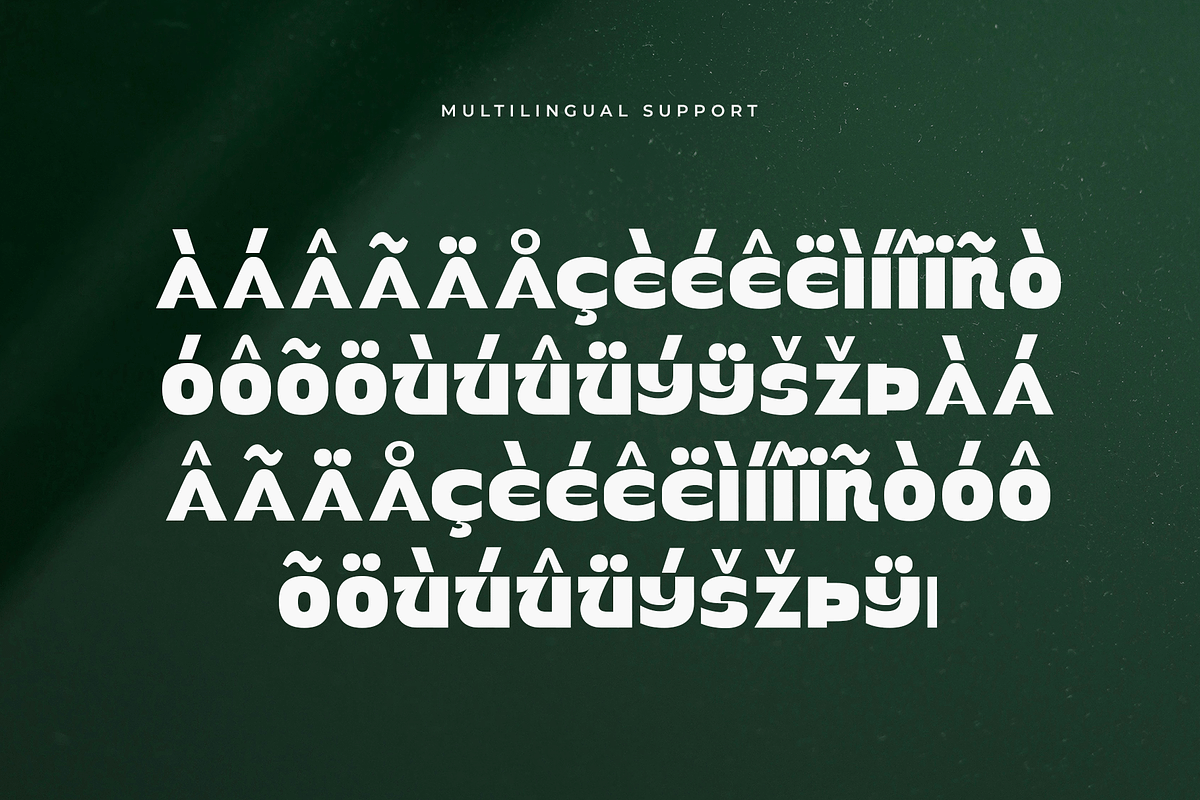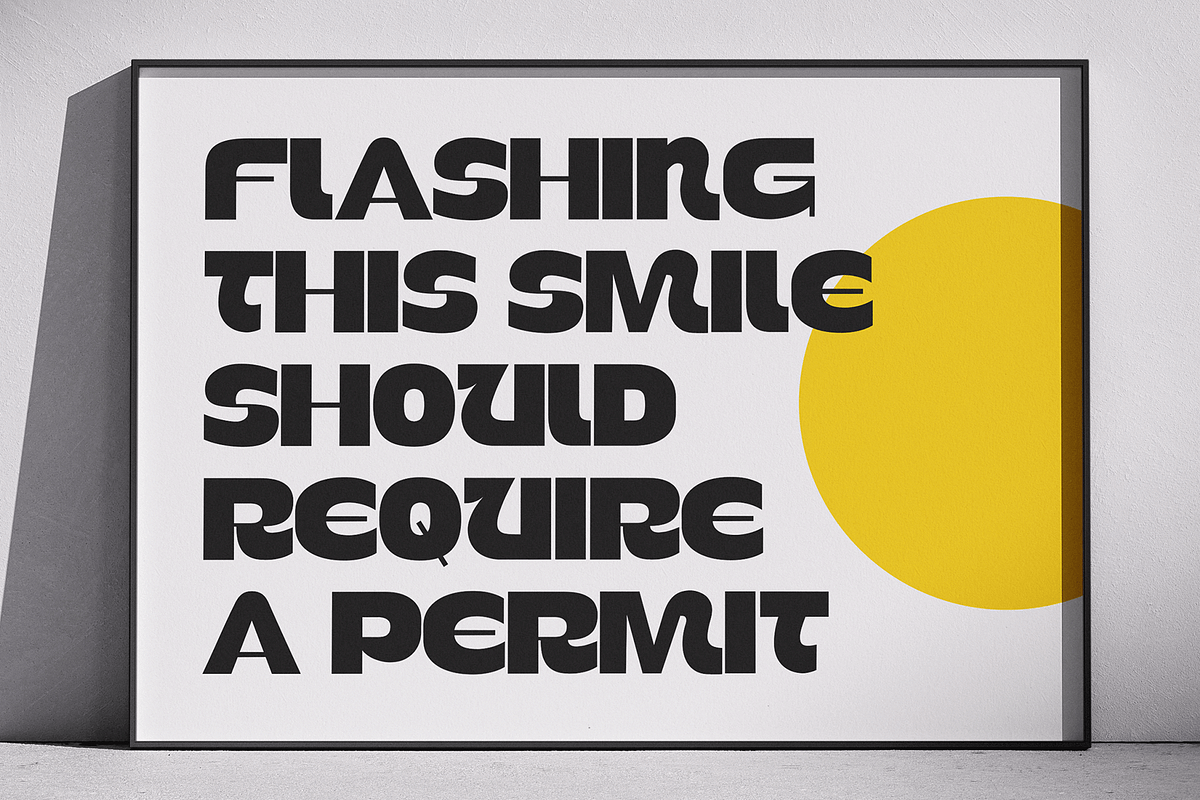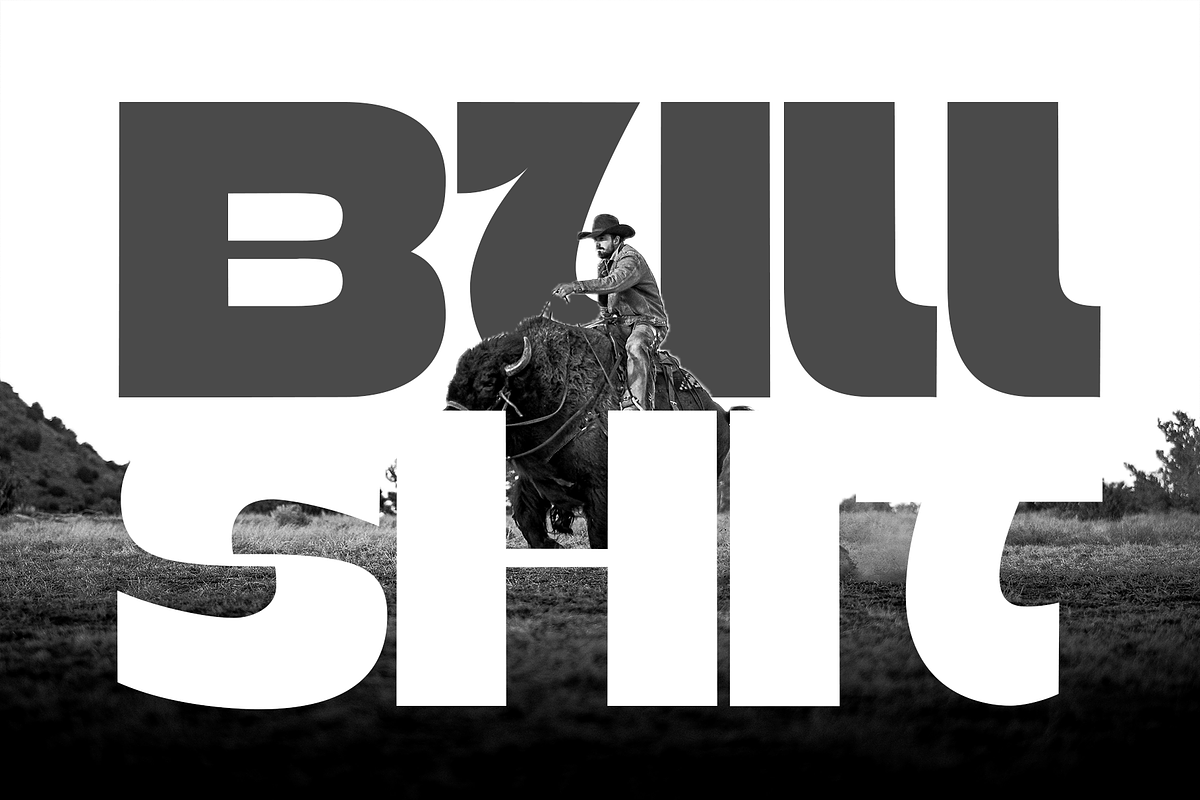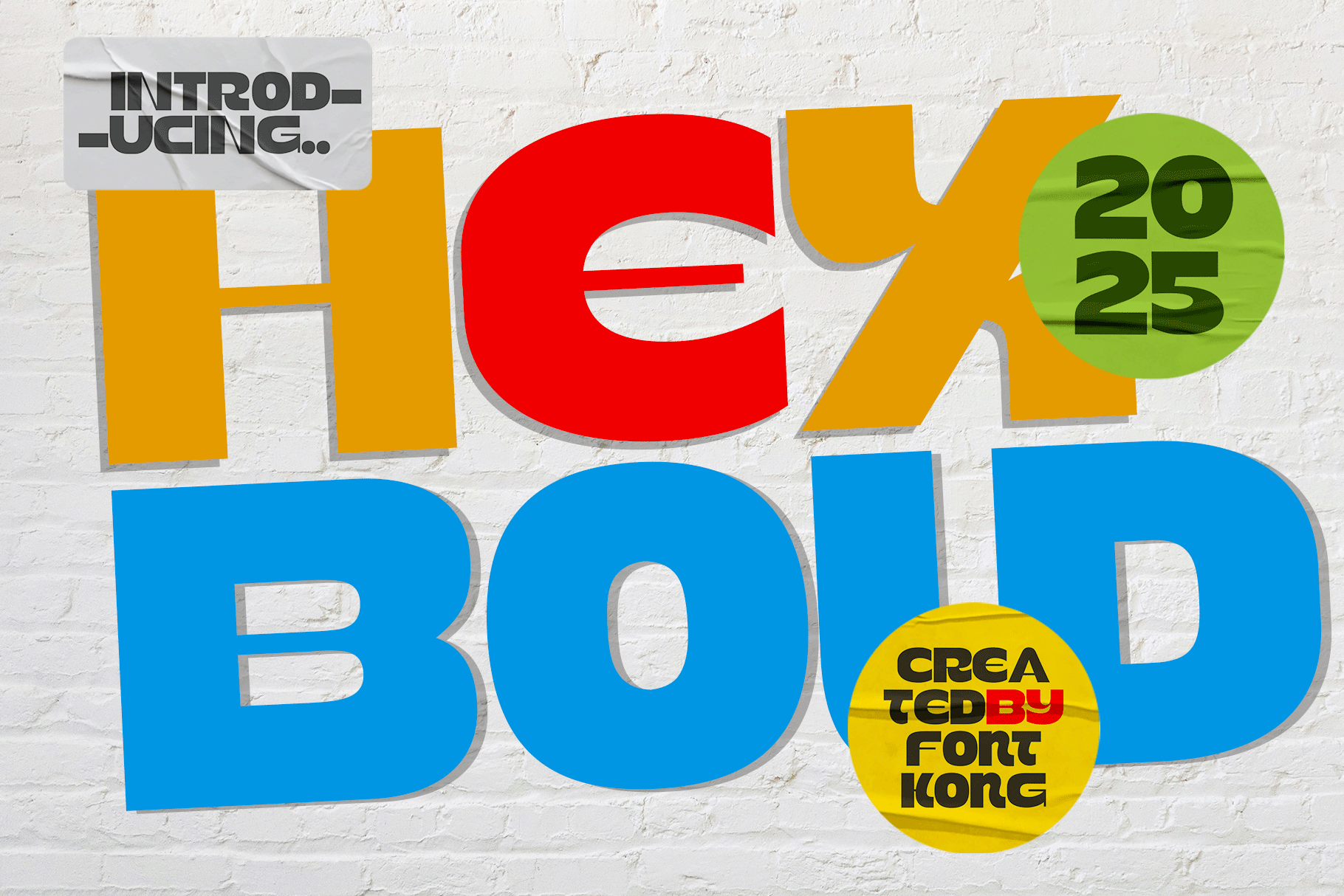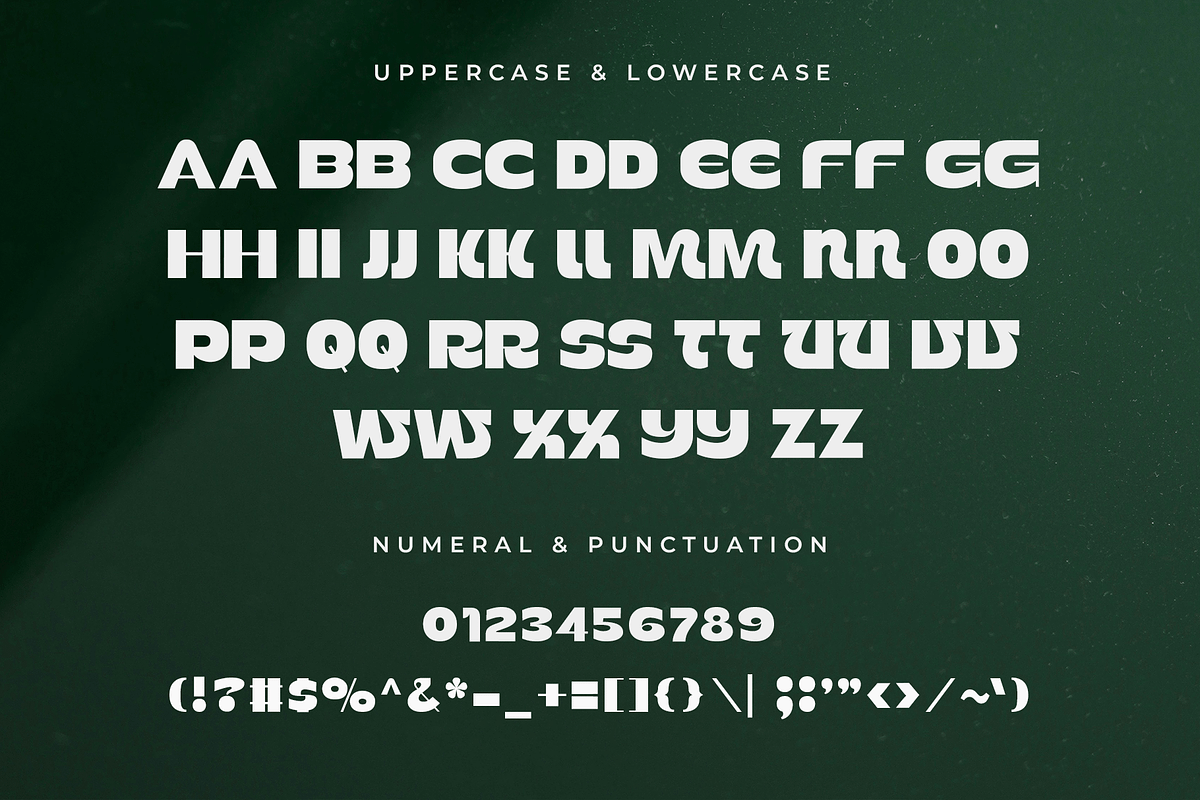
Hexbold – Bold Modern SansSerif Font
Hexbold – Bold Modern Sans Serif Font
Hexbold is a bold sans serif font that combines modern minimalism with powerful geometry, making it an ideal choice for impactful headlines, bold branding, and eye-catching design work. Its thick, clean letterforms offer excellent readability while maintaining a striking visual presence.
Whether you're crafting a bold logo, a tech-forward website header, or standout editorial layouts, Hexbold delivers clarity and strength in every letter. This typeface is perfect for startups, modern businesses, posters, packaging, and more.
Hexbold features uppercase characters, numbers, punctuation, and multilingual support a reliable tool in every designer’s toolkit for high-impact projects.